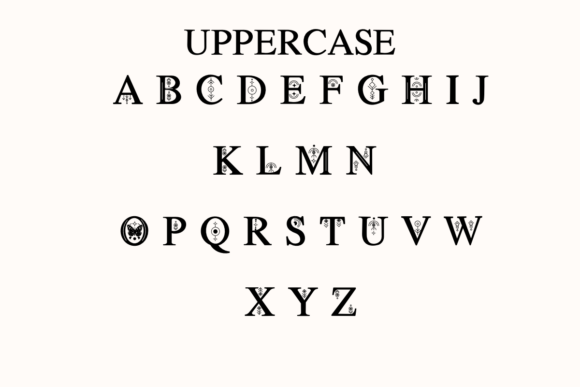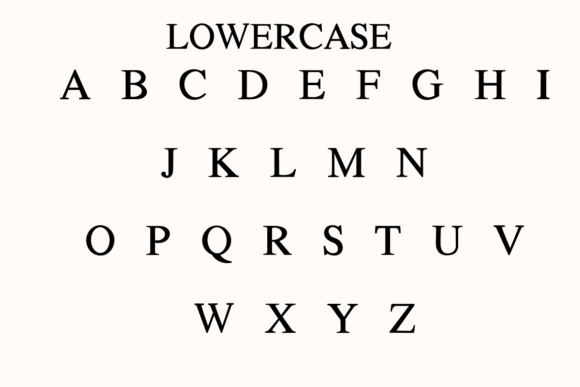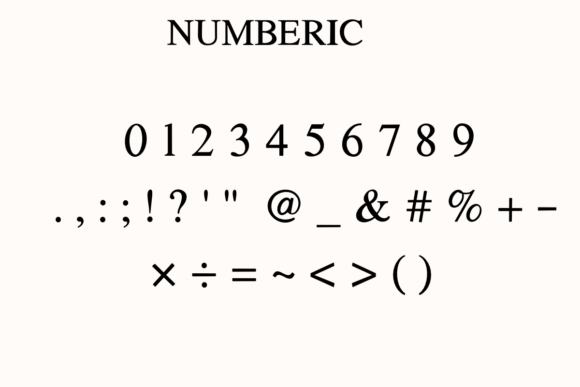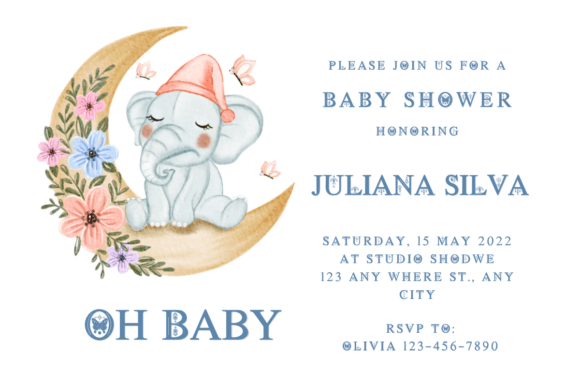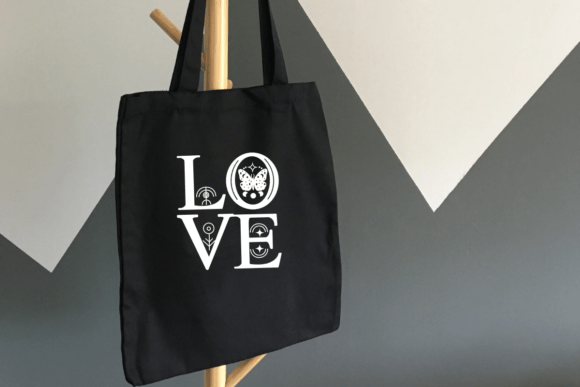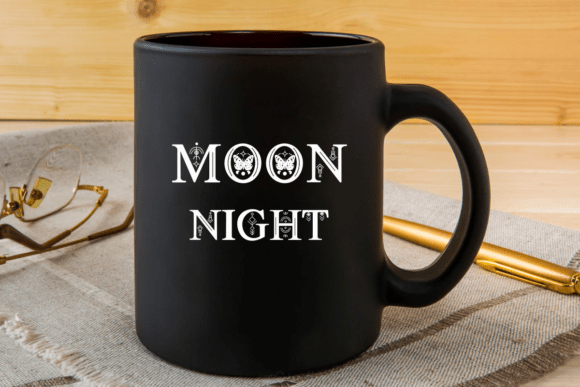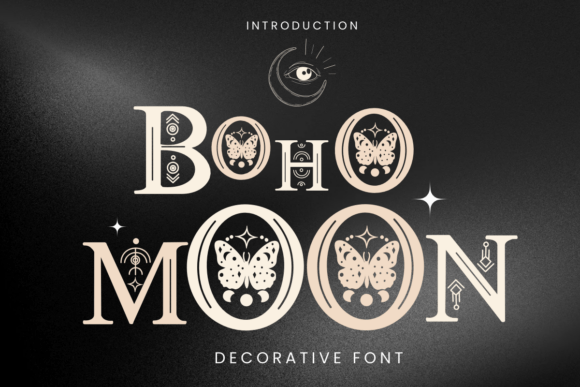
Introducing Boho Moon Font: Elevate Your Designs with Organic Elegance
Are you a designer, crafter, or DIY enthusiast looking for a unique and beautiful font to add a touch of elegance to your creations? Look no further than Boho Moon Font, an organic and stunning decorative font that is sure to become a treasured asset in your font library.
The Beauty of Boho Moon Font
Boho Moon Font is a handcrafted, decorative font that exudes a sense of free-spirited elegance. Its organic design features lovely ornaments, intricate details, and a whimsical feel that will add a touch of magic to any project. Whether you’re working on a branding project, crafting a handmade card, or creating a stunning visual display, Boho Moon Font is the perfect choice.
What Makes Boho Moon Font So Special?
So, what sets Boho Moon Font apart from other fonts? Here are just a few reasons why this font is a must-have for designers and crafters:
- Unique and eye-catching design: Boho Moon Font features a one-of-a-kind design that will make your creations stand out from the crowd.
- Ornate details and ornaments: The font’s intricate details and lovely ornaments add a touch of sophistication and elegance to any project.
- Versatility: Boho Moon Font can be used on a wide range of projects, from branding and advertising to crafting and DIY.
How to Use Boho Moon Font in Your Designs
Boho Moon Font is incredibly versatile and can be used in a variety of design projects. Here are a few ideas to get you started:
- Branding and logos: Use Boho Moon Font to create a unique and eye-catching logo for your business or brand.
- Stationery and cards: Add a touch of elegance to your handmade cards, invitations, and stationery with Boho Moon Font.
- Signs and displays: Use this font to create stunning visual displays, signs, and posters that will grab attention.
- Digital designs: Boho Moon Font can also be used in digital designs, such as social media graphics, blog headers, and more.
Tips for Pairing Boho Moon Font with Other Fonts
To get the most out of Boho Moon Font, try pairing it with other fonts to create a unique and visually appealing design. Here are a few tips:
- Pair with a sans-serif font: Pair Boho Moon Font with a clean and simple sans-serif font, such as Arial or Helvetica, to create a striking contrast.
- Combine with a script font: Combine Boho Moon Font with another script font, such as Pacifico or Great Vibes, to create a beautiful and elegant design.
- Use as a headline font: Use Boho Moon Font as a headline font and pair it with a simpler font, such as Times New Roman or Georgia, for body text.
Boho Moon Font is a stunning and versatile decorative font that is sure to elevate any design project. With its unique and eye-catching design, intricate details, and lovely ornaments, this font is a must-have for designers, crafters, and DIY enthusiasts. Whether you’re working on a branding project, crafting a handmade card, or creating a stunning visual display, Boho Moon Font is the perfect choice. So why wait? Download Boho Moon Font today and start creating beautiful, one-of-a-kind designs that will leave a lasting impression.